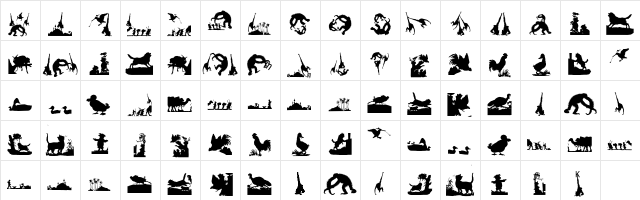
KarawaneSilhous Regular
Design Context for KarawaneSilhous Typeface
KarawaneSilhous is a composed and adaptable typeface that performs quietly and consistently across a wide range of design contexts.